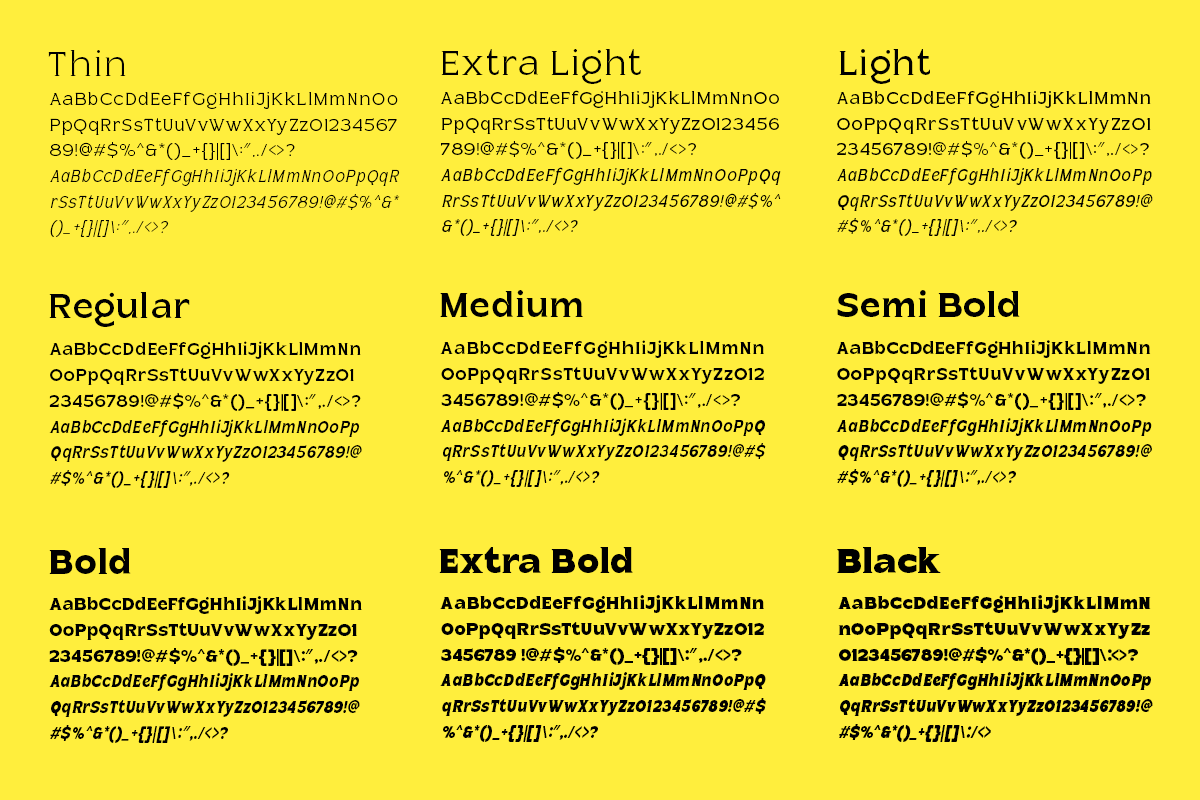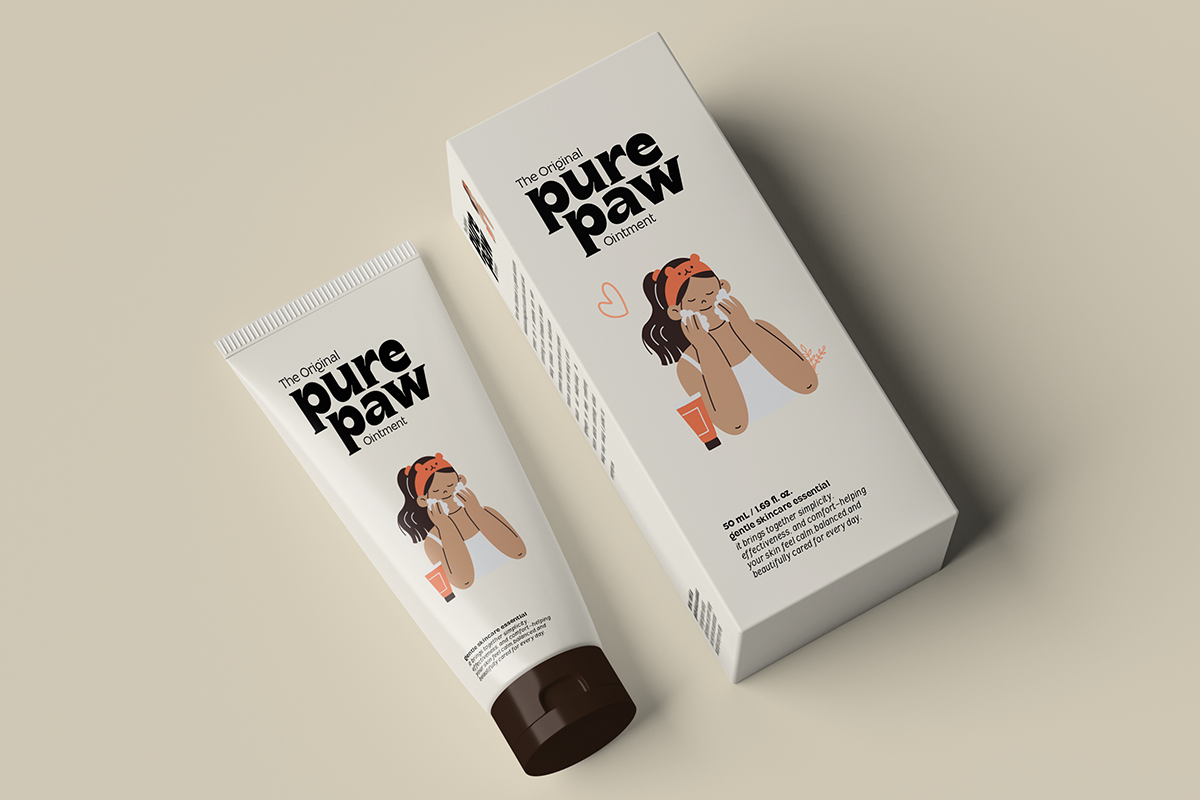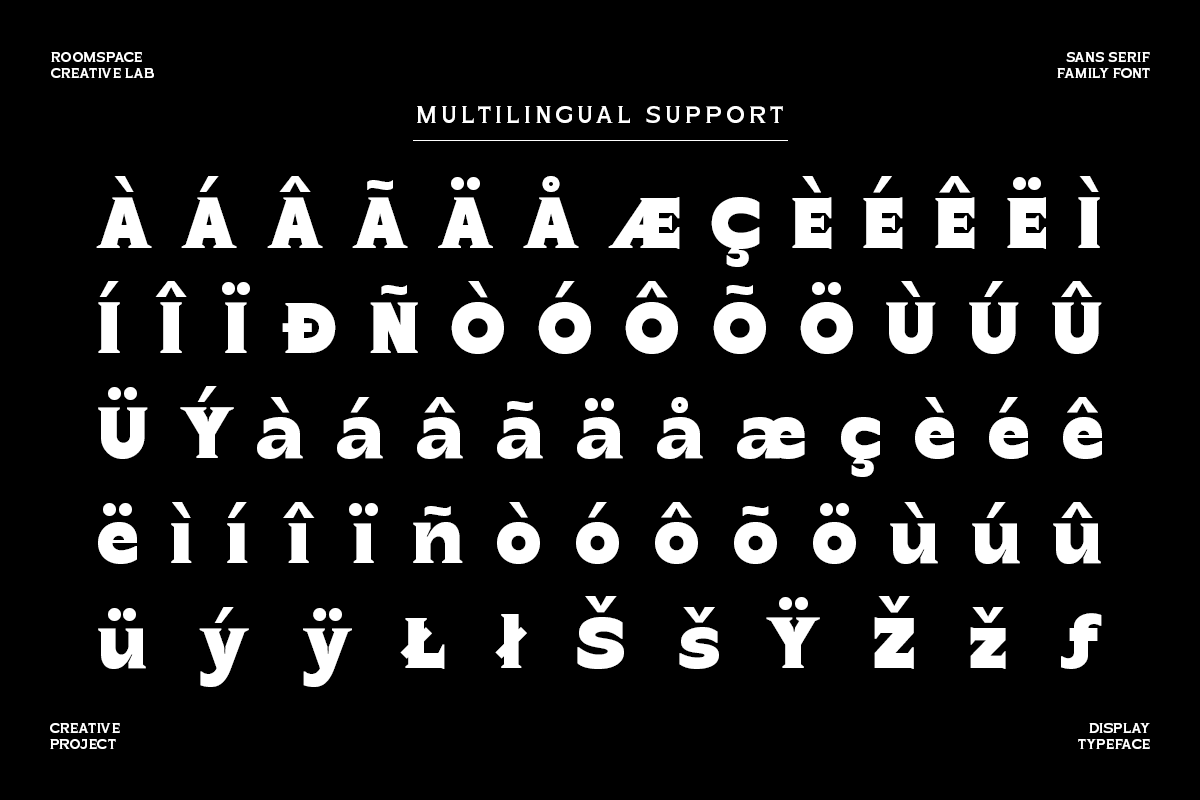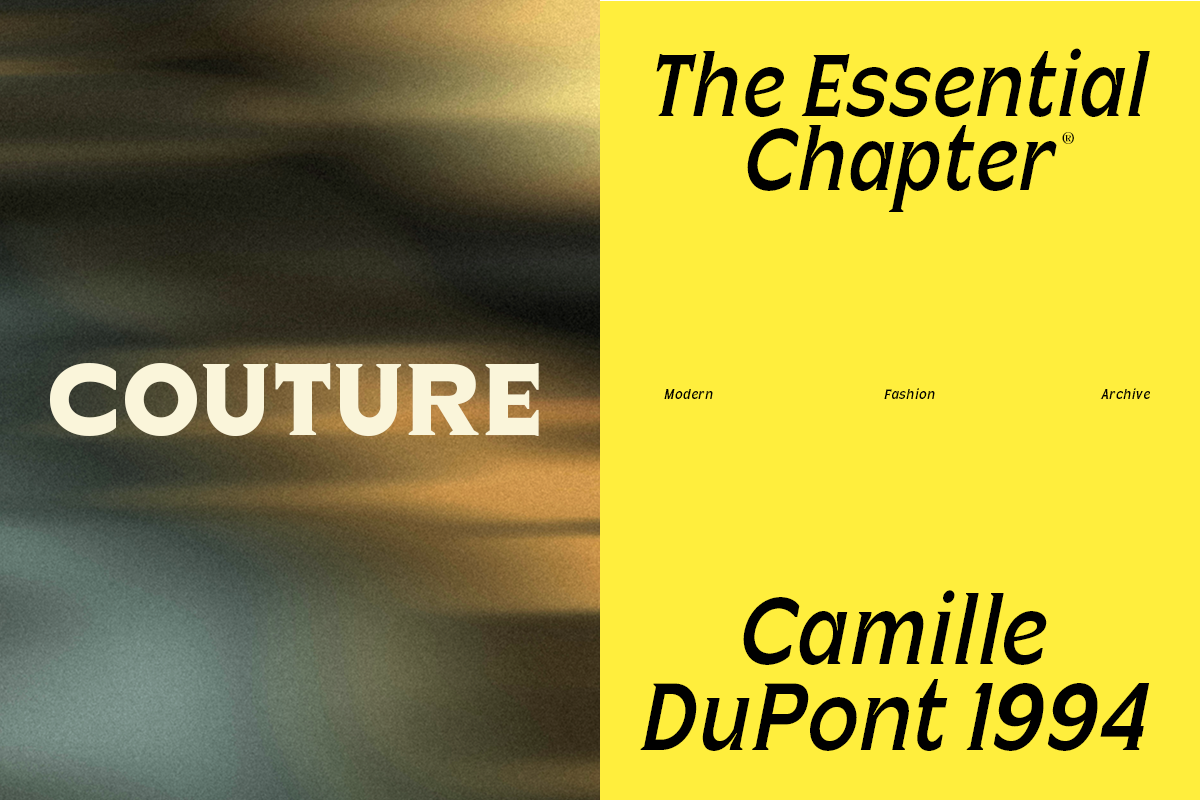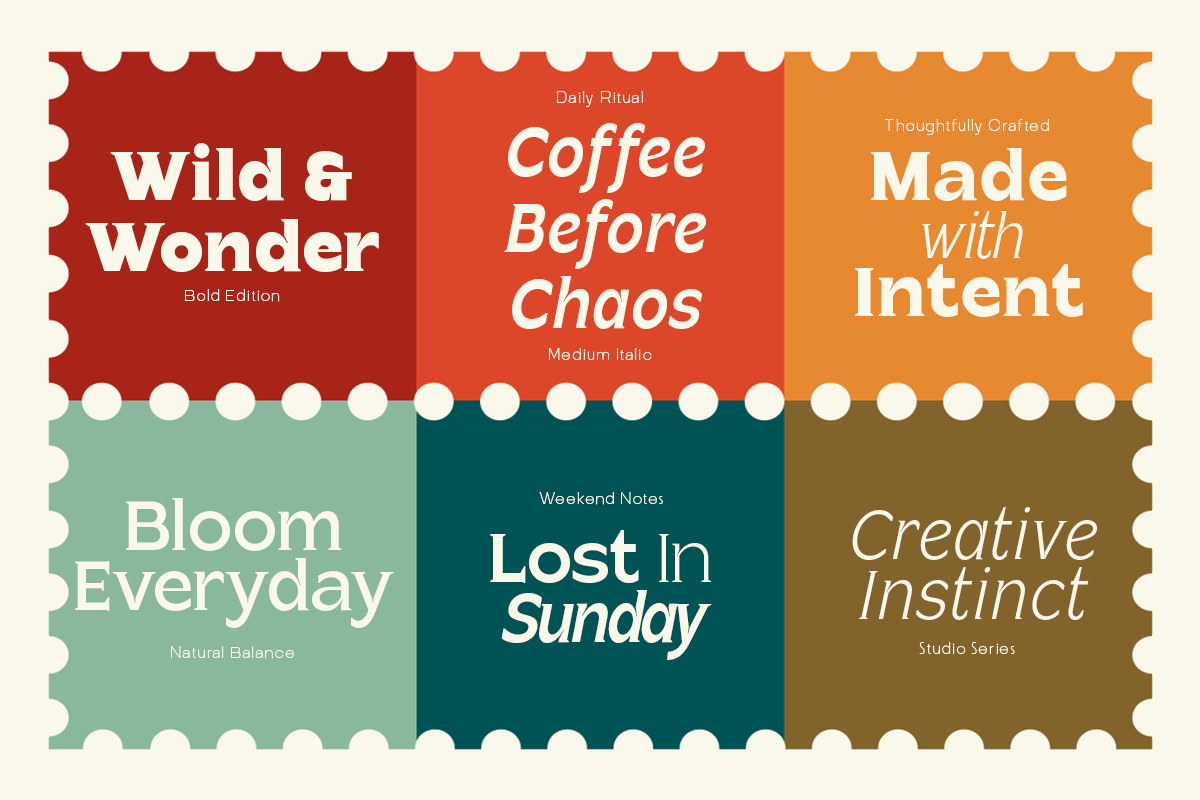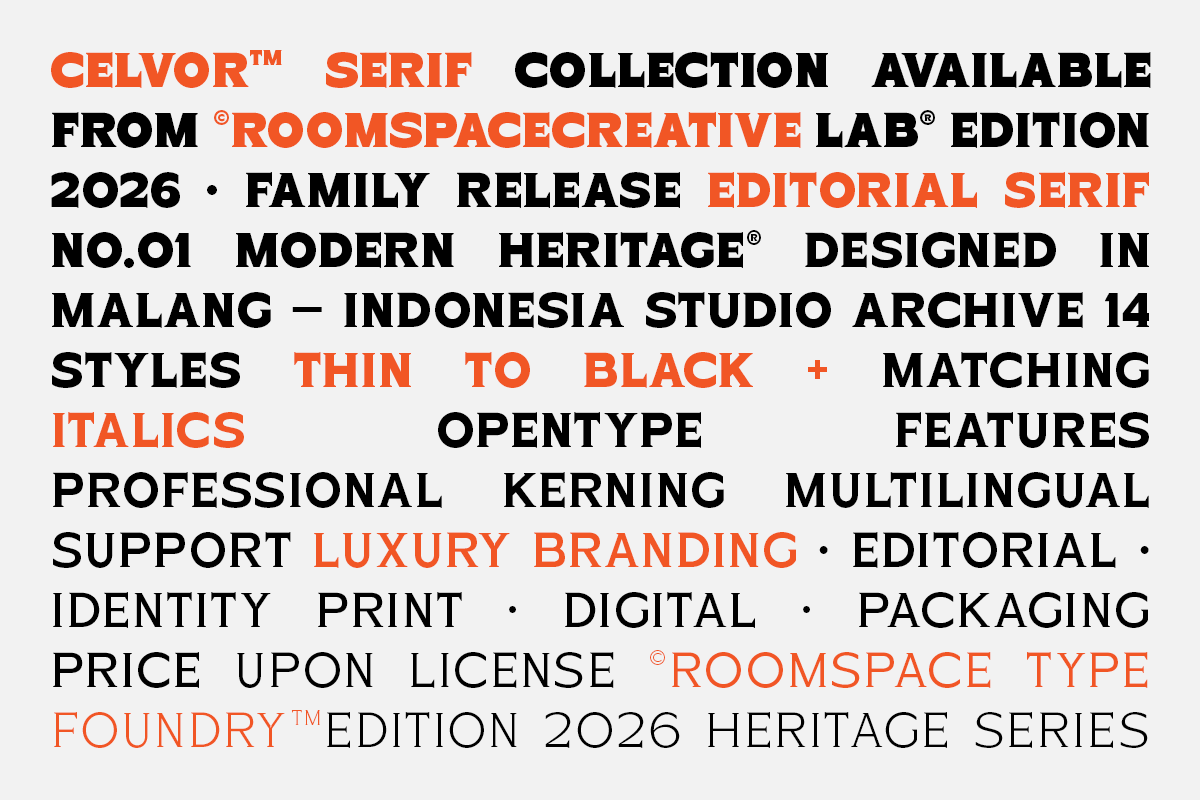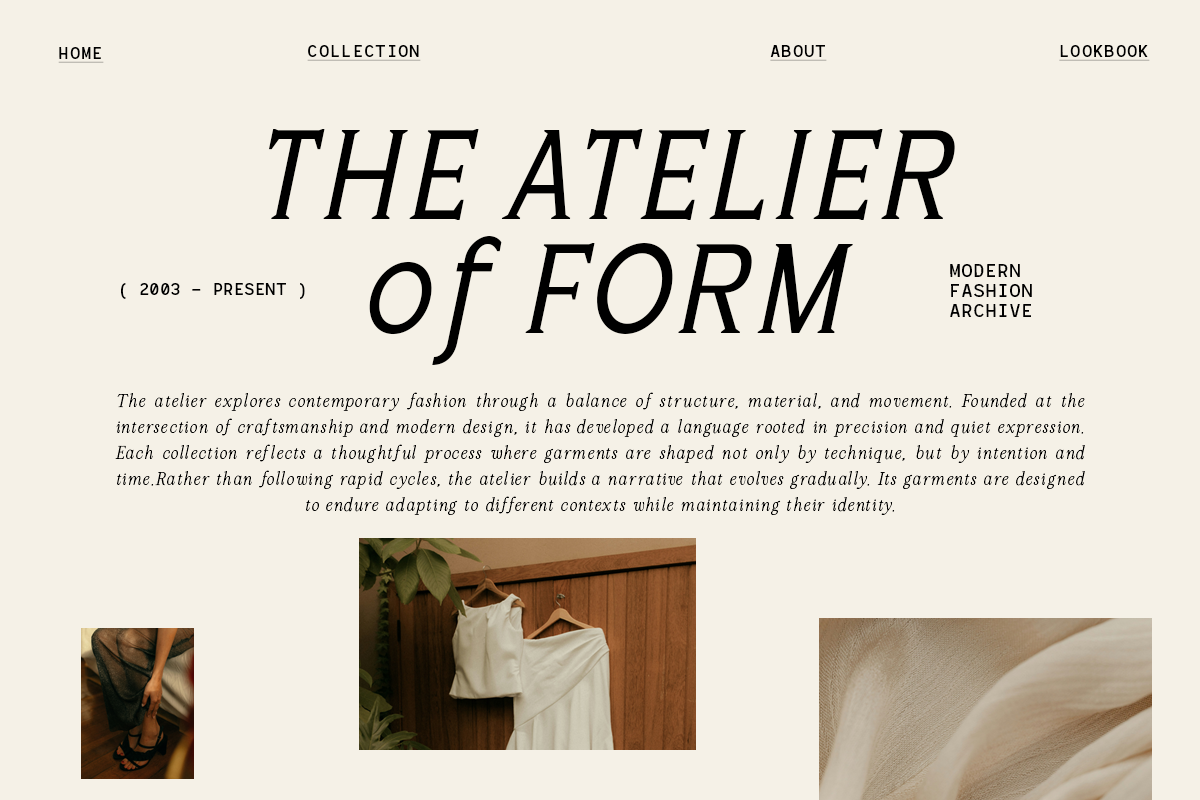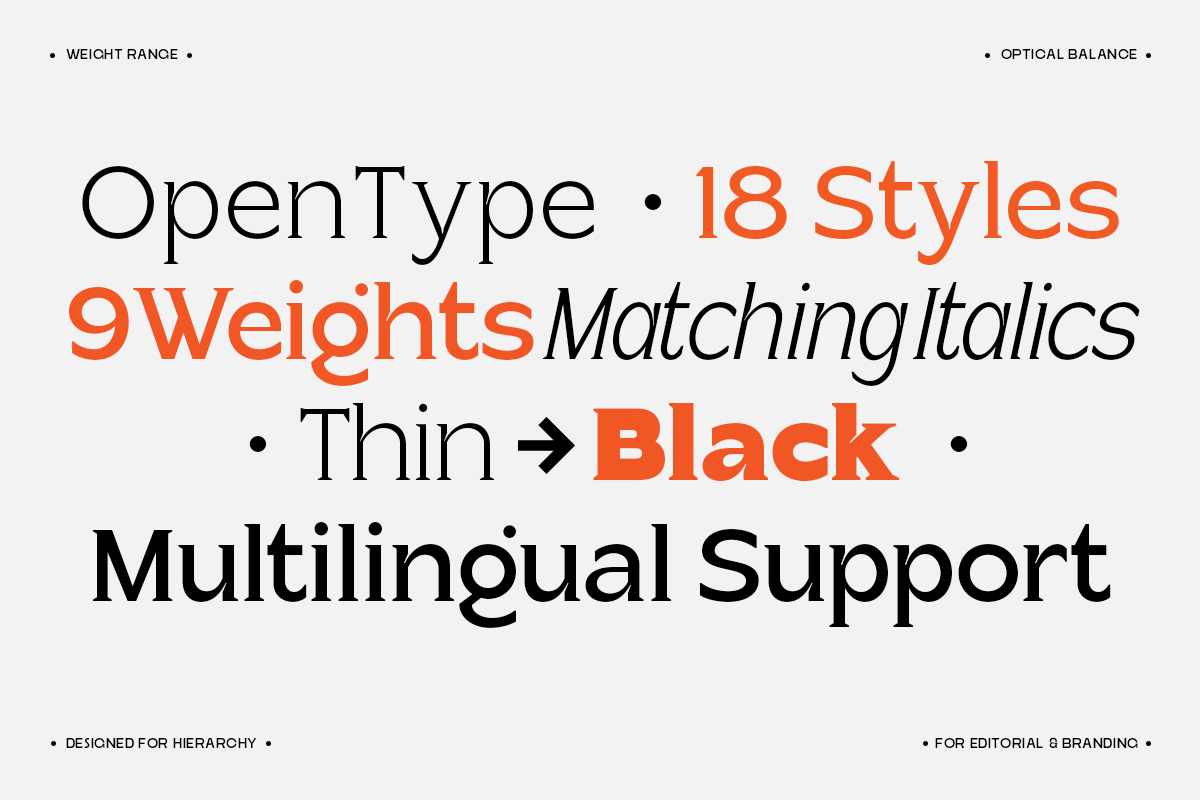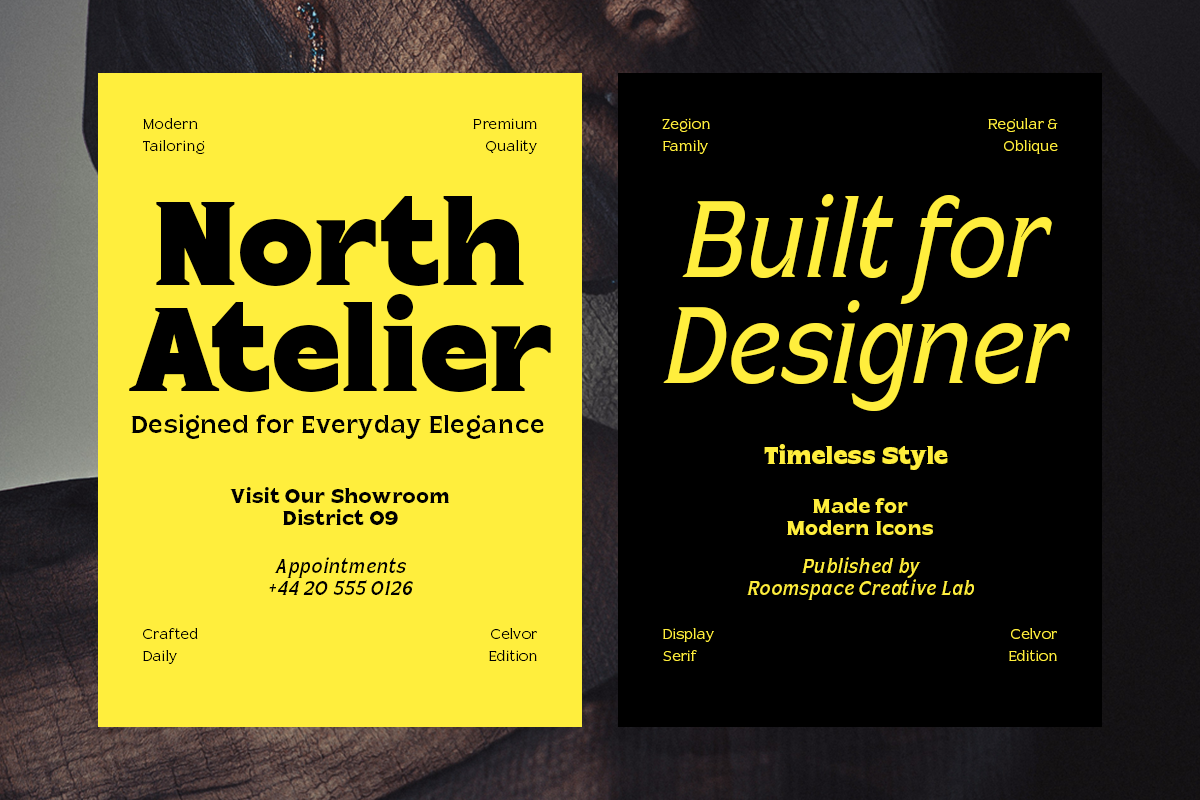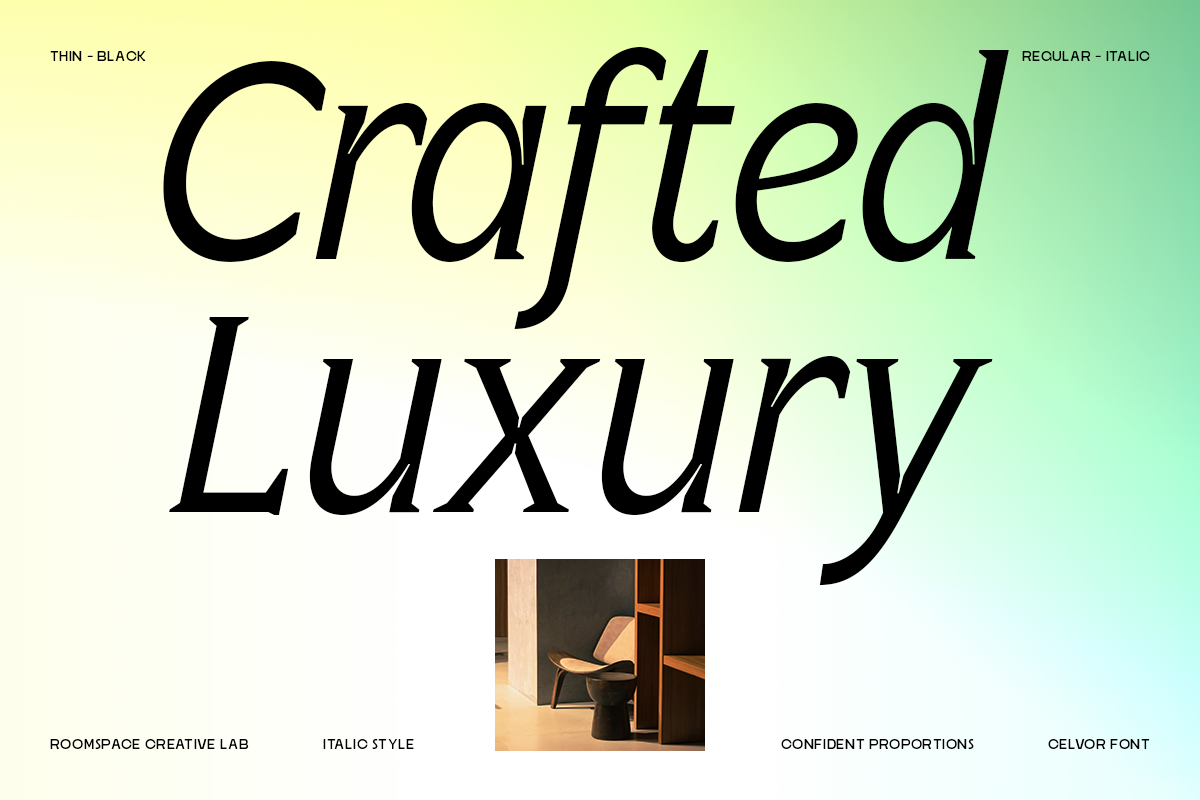
Celvor Edition – Serif Font Family
Celvor Edition is a premium contemporary serif font family crafted for designers who seek timeless elegance with modern precision. Featuring 18 styles with 9 weights from Thin to Black and matching italics, Celvor Edition offers exceptional versatility for branding, editorial, and creative design.
Built with refined proportions, optical balance, and professional kerning, the family includes OpenType features, stylistic alternates, ligatures, multilingual support, numerals, punctuation, and webfont compatibility, ensuring a seamless workflow across both print and digital media.
Perfect for luxury branding, editorial design, fashion identities, logo design, packaging, magazines, book covers, beauty brands, restaurants, hotels, architecture studios, websites, and premium visual identities, Celvor Edition delivers a sophisticated balance of classic serif craftsmanship and contemporary aesthetics.